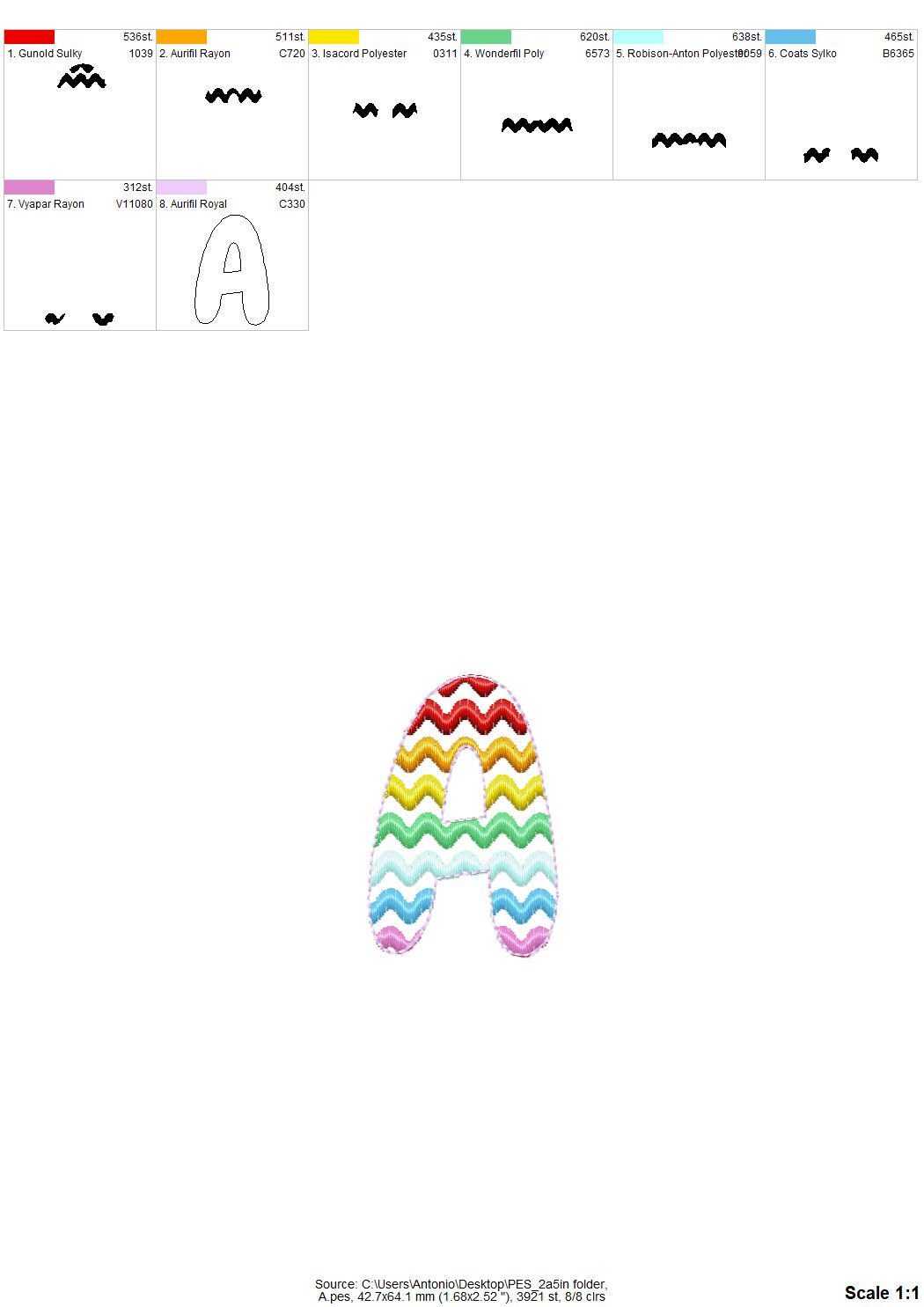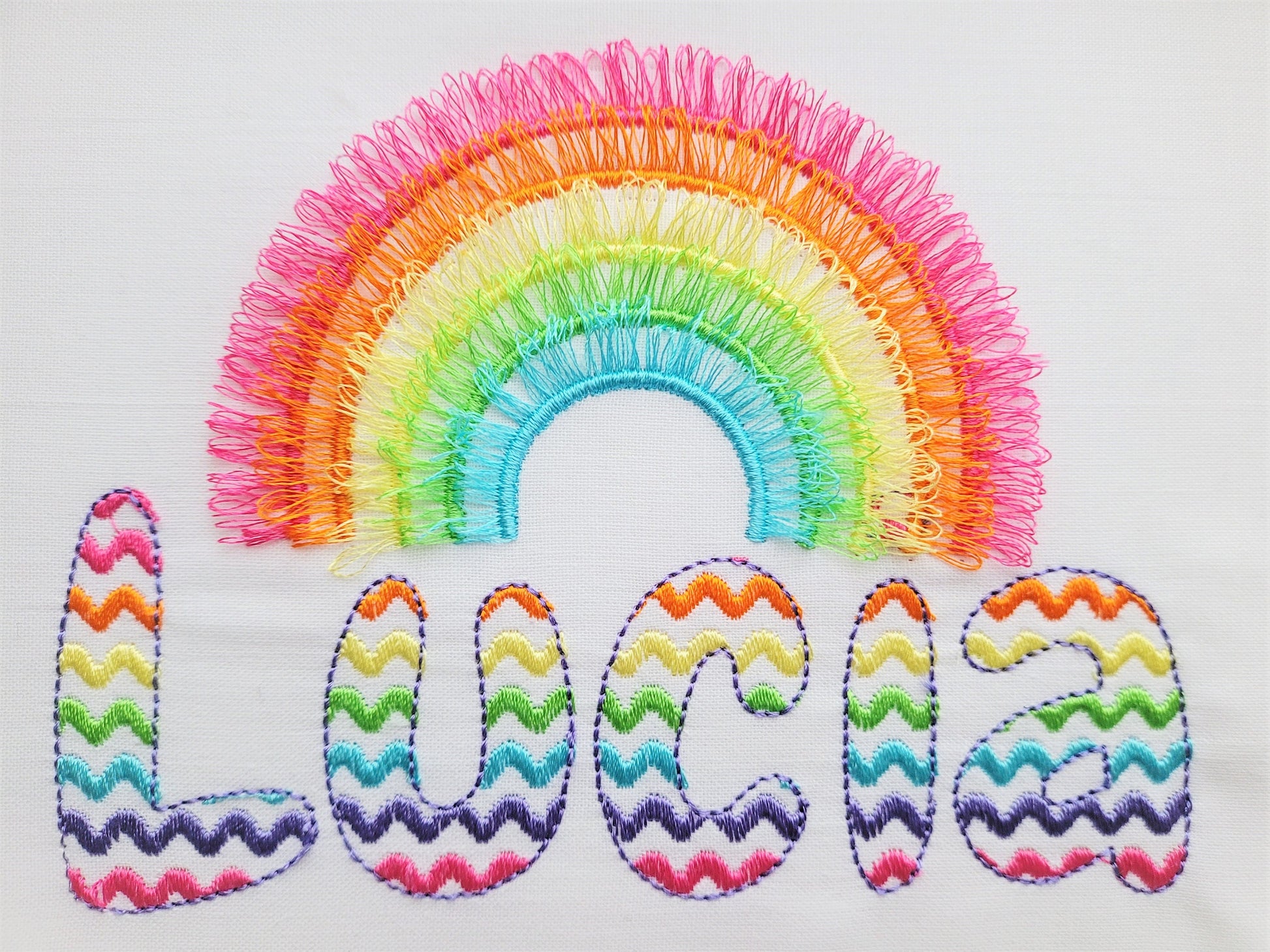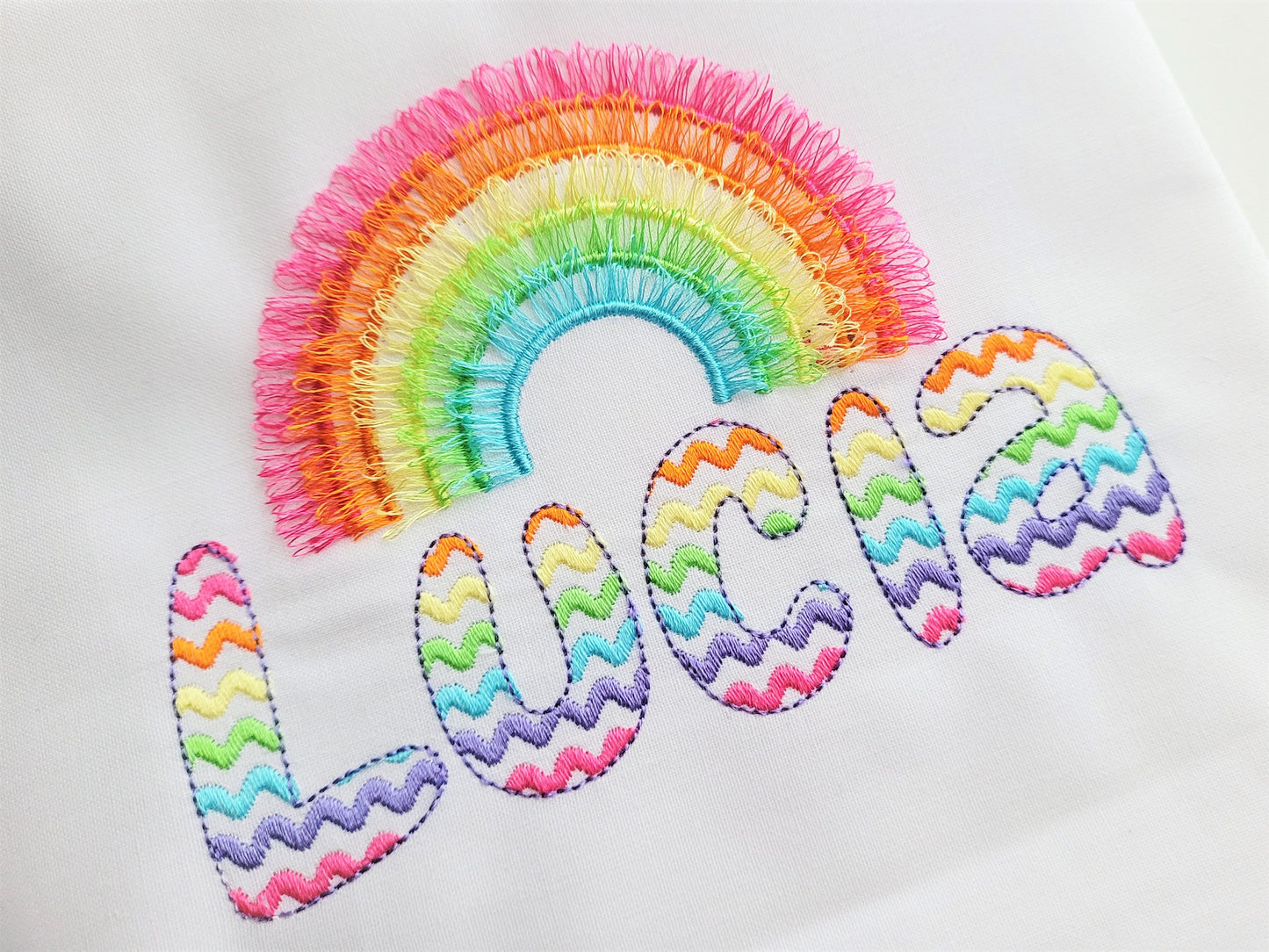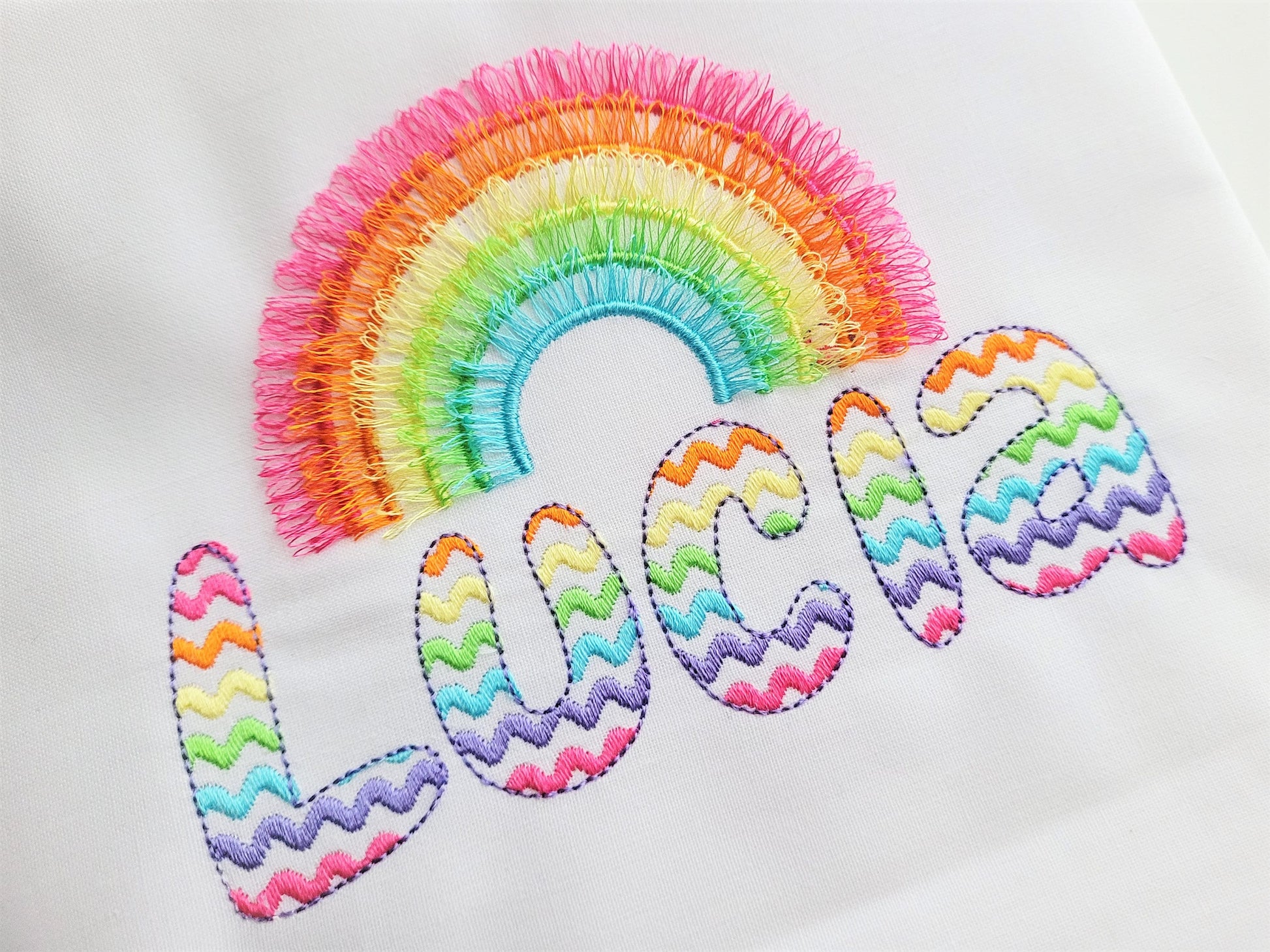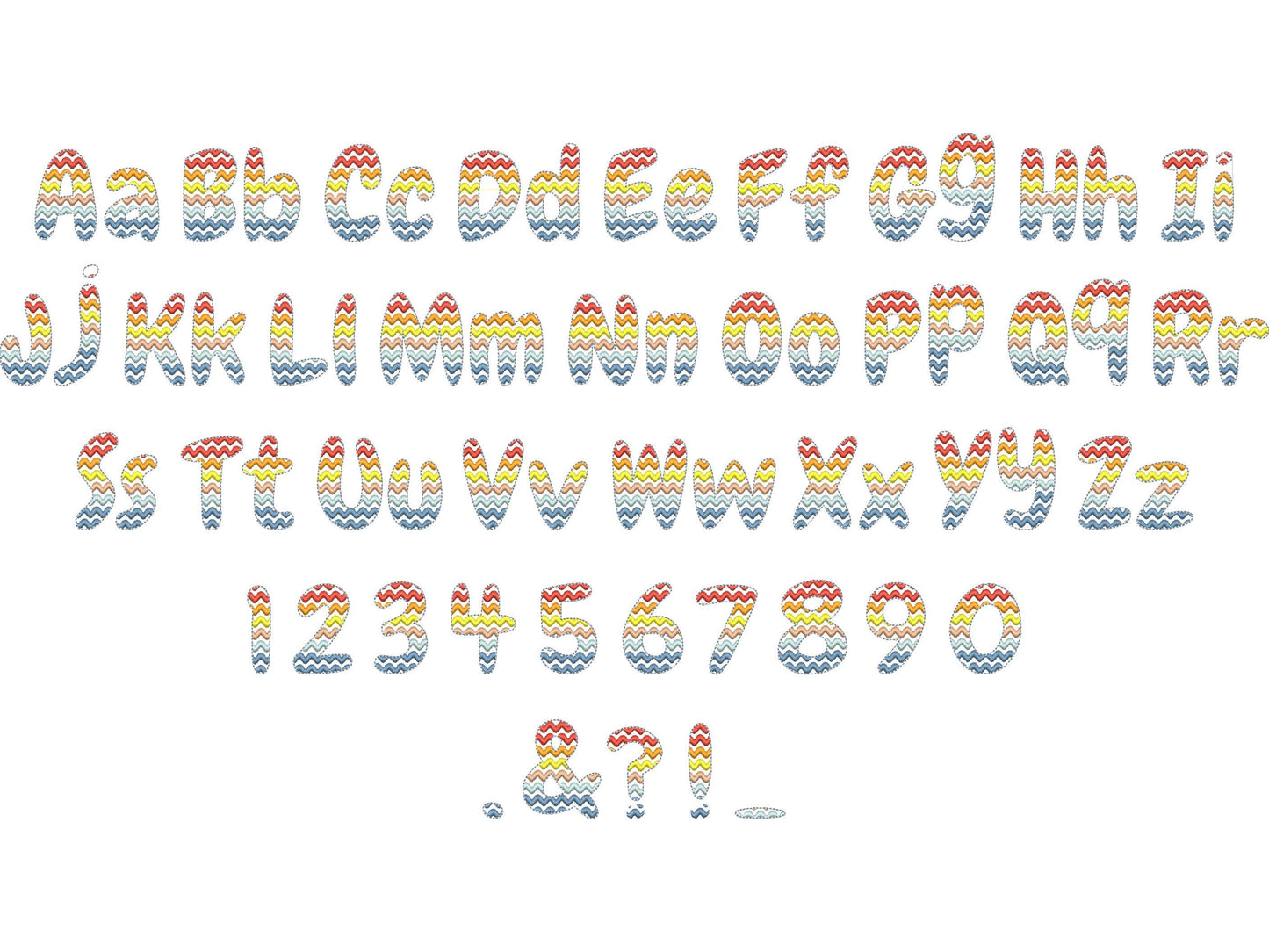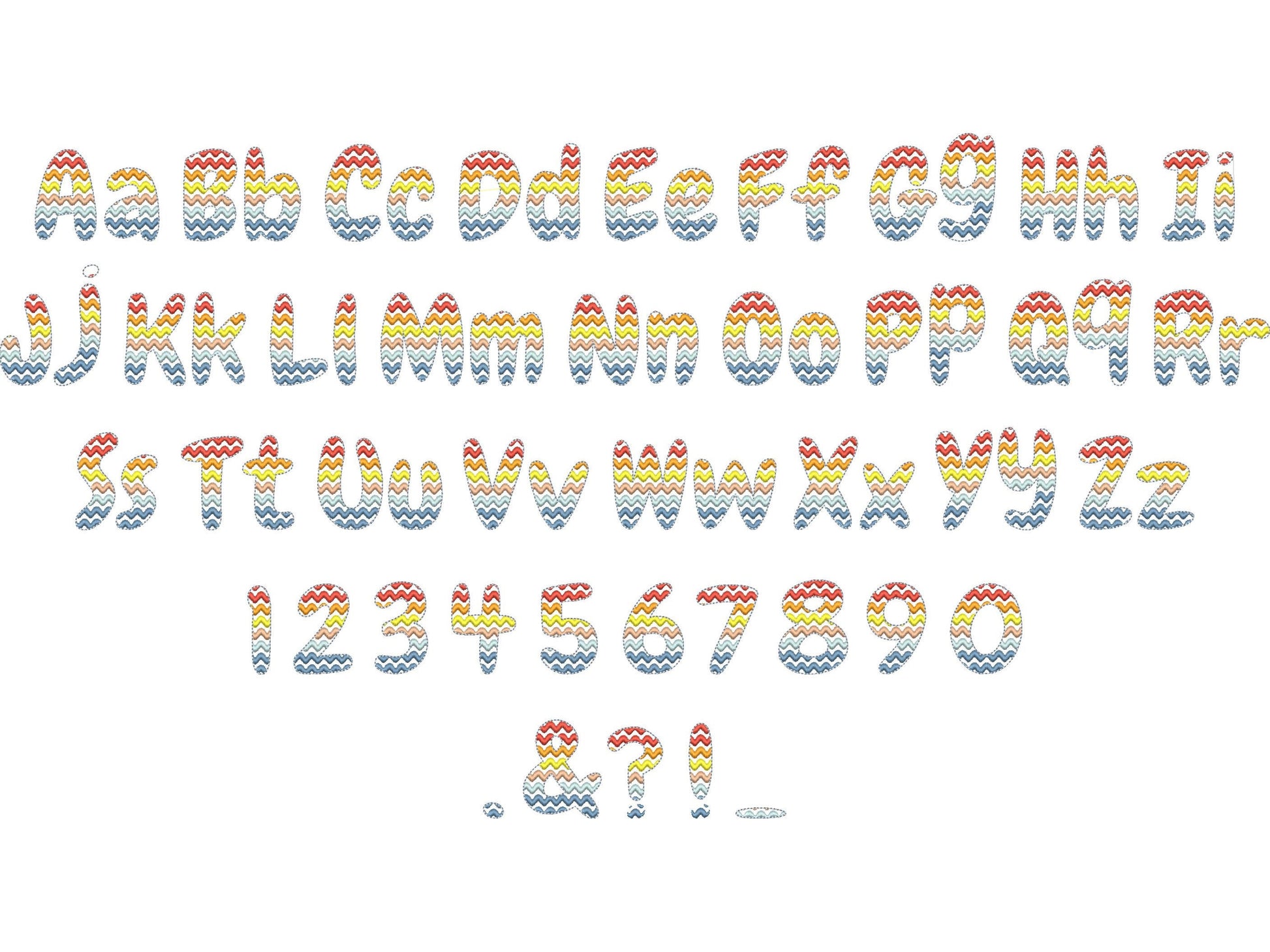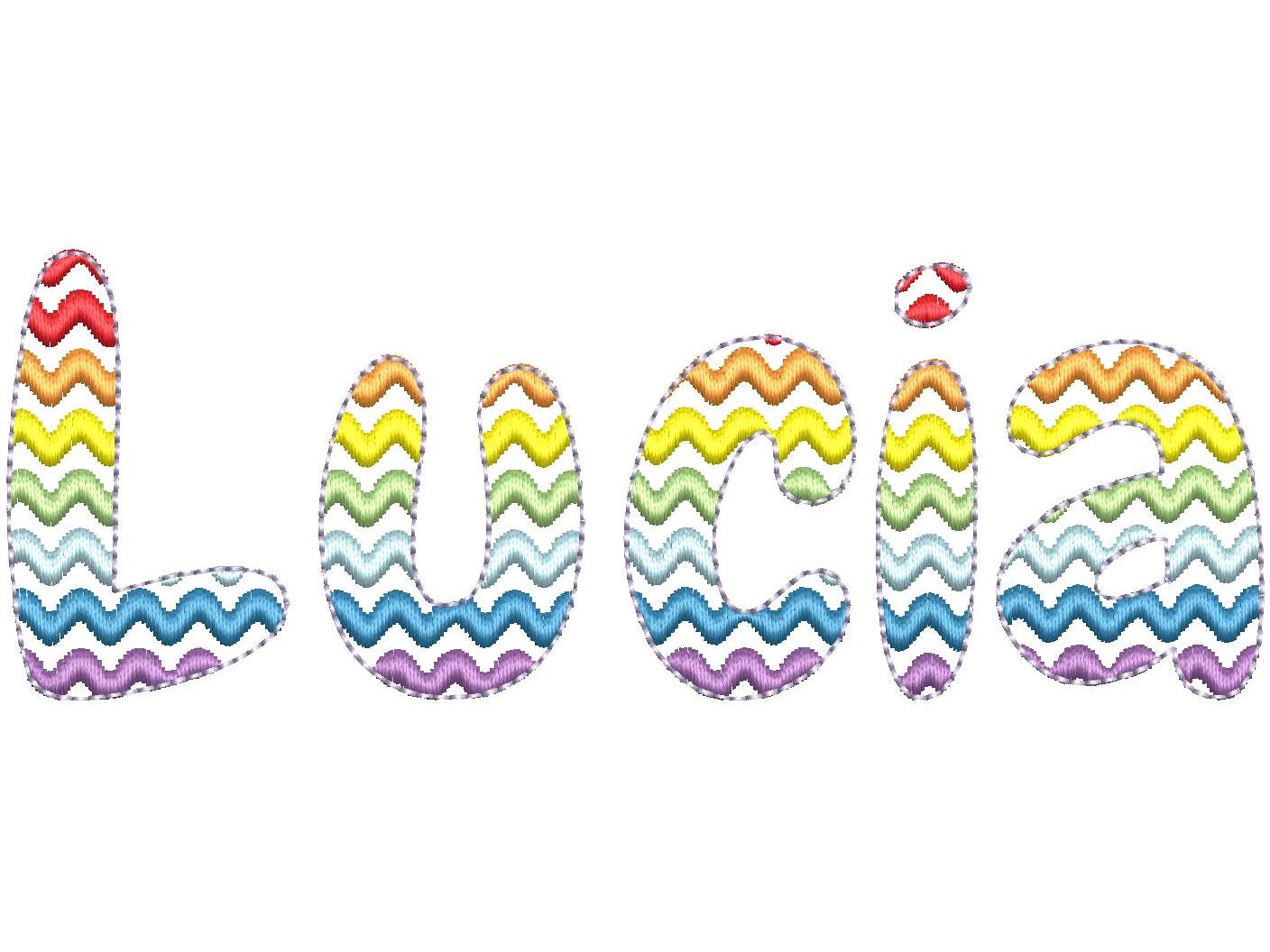
Or click to open the linkA ricrac patterned font, lacy and quick to sew. Colorful for kids' names, pillows and bags, or use it as raggedy applique.
Uppercase and lowercase letters, numbers 0 to 9 and punctuation. Five sizes: 1.7, 2.1, 2.5, 3 and 3.8 inches. The ricrac pattern is stitched in and the fabric shows through; for raggedy applique, stitch on fabric and trim.